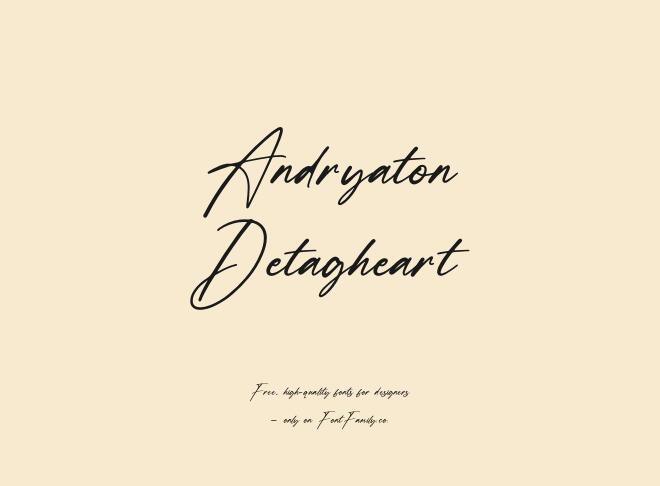
Andryaton Detagheart Font
Introducing the Andryaton Detagheart Font, a modern handwritten typeface that exudes a casual and relaxed vibe. This font is a perfect blend of simplicity and creativity, making it an excellent choice for a wide range of design projects. With its unique flair and decorative elements, it can add a distinctive touch to logos, social media posts, invitations, branding, and more. Compared to other fonts, Andryaton Detagheart stands out with its artistic style and legibility. It's free to download and a valuable asset to any designer's toolkit. This font is not only beautiful but also practical, making it a great choice for both personal and commercial projects. Its modern, decorative style makes it a standout choice in the realm of handwritten fonts.